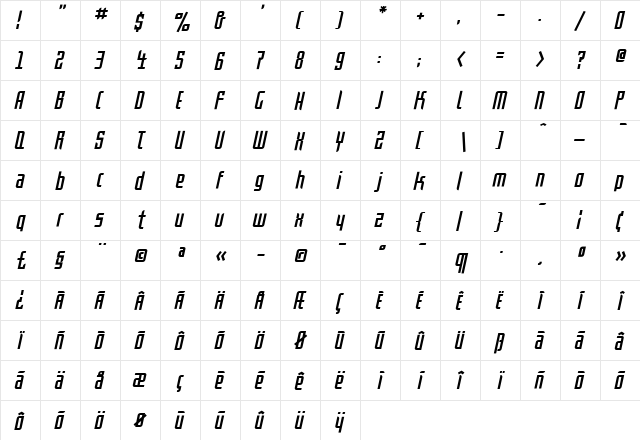
Rosetta Italic
Design Context for Rosetta Typeface
Rosetta is a composed and adaptable typeface that performs quietly and consistently across a wide range of design contexts. Its italic angle brings a sense of urgency and motion to the letterforms.
Pro Tip: Try Rosetta for annotation and caption copy alongside an upright companion — the contrast in angle creates a dynamic but ordered typographic system.